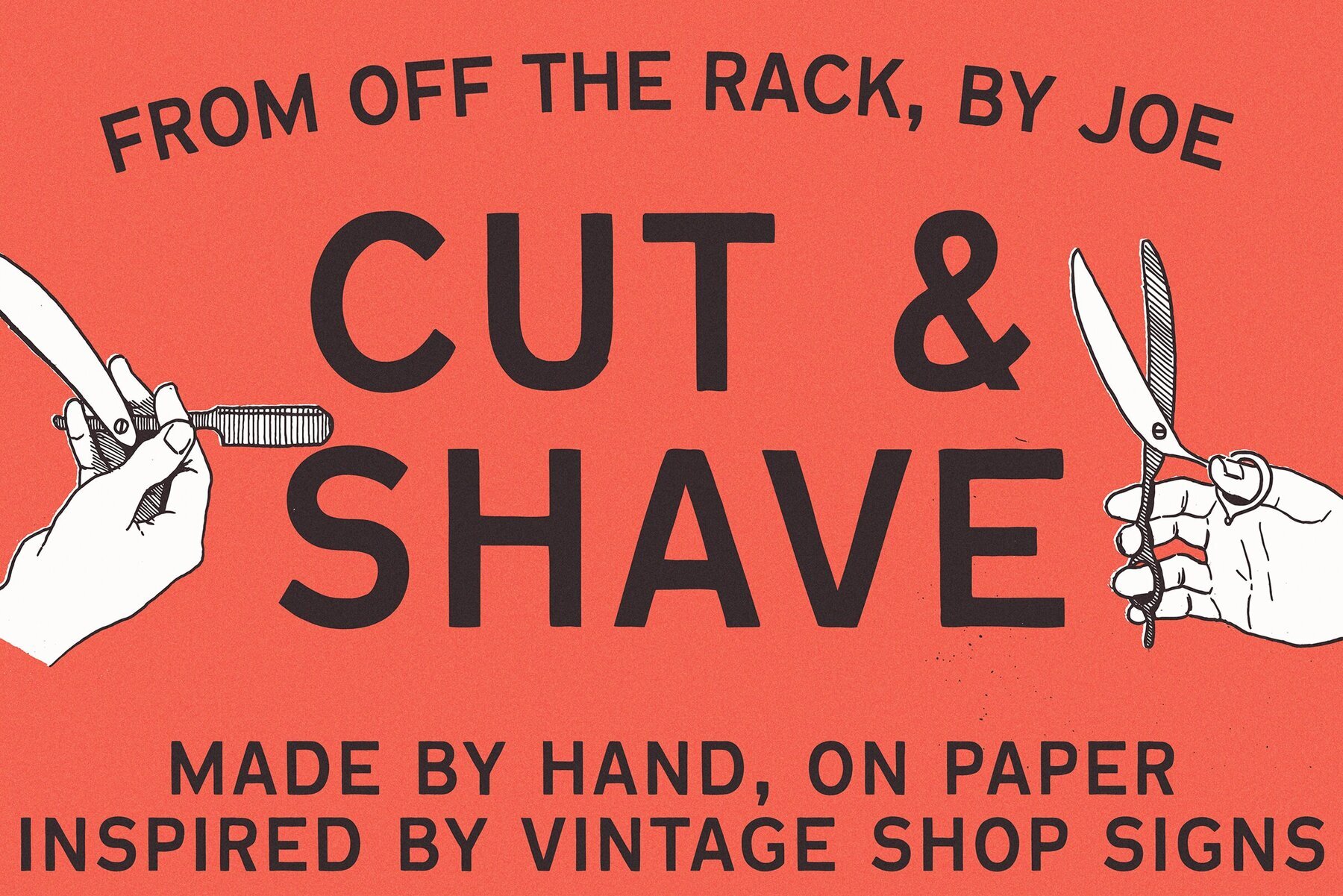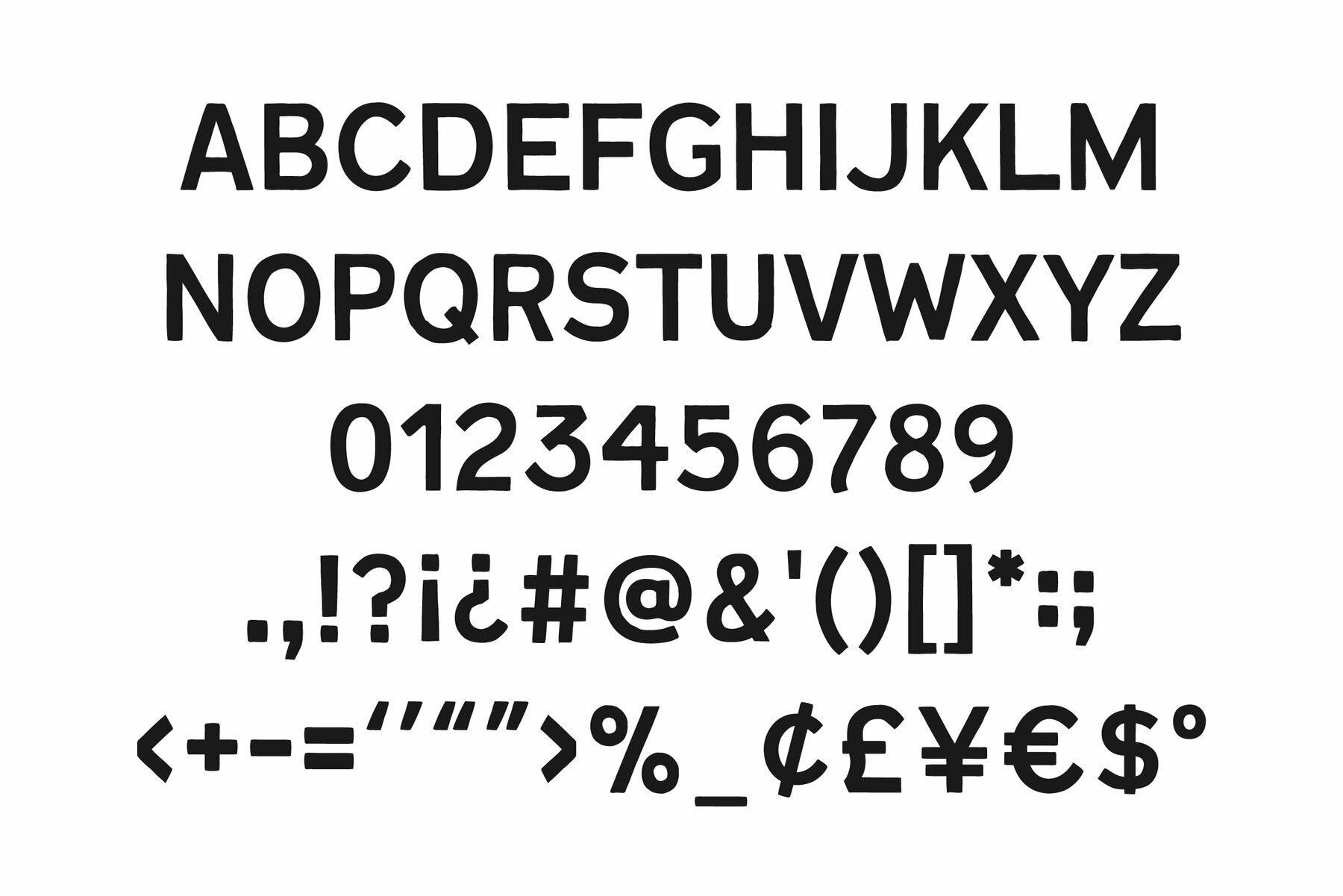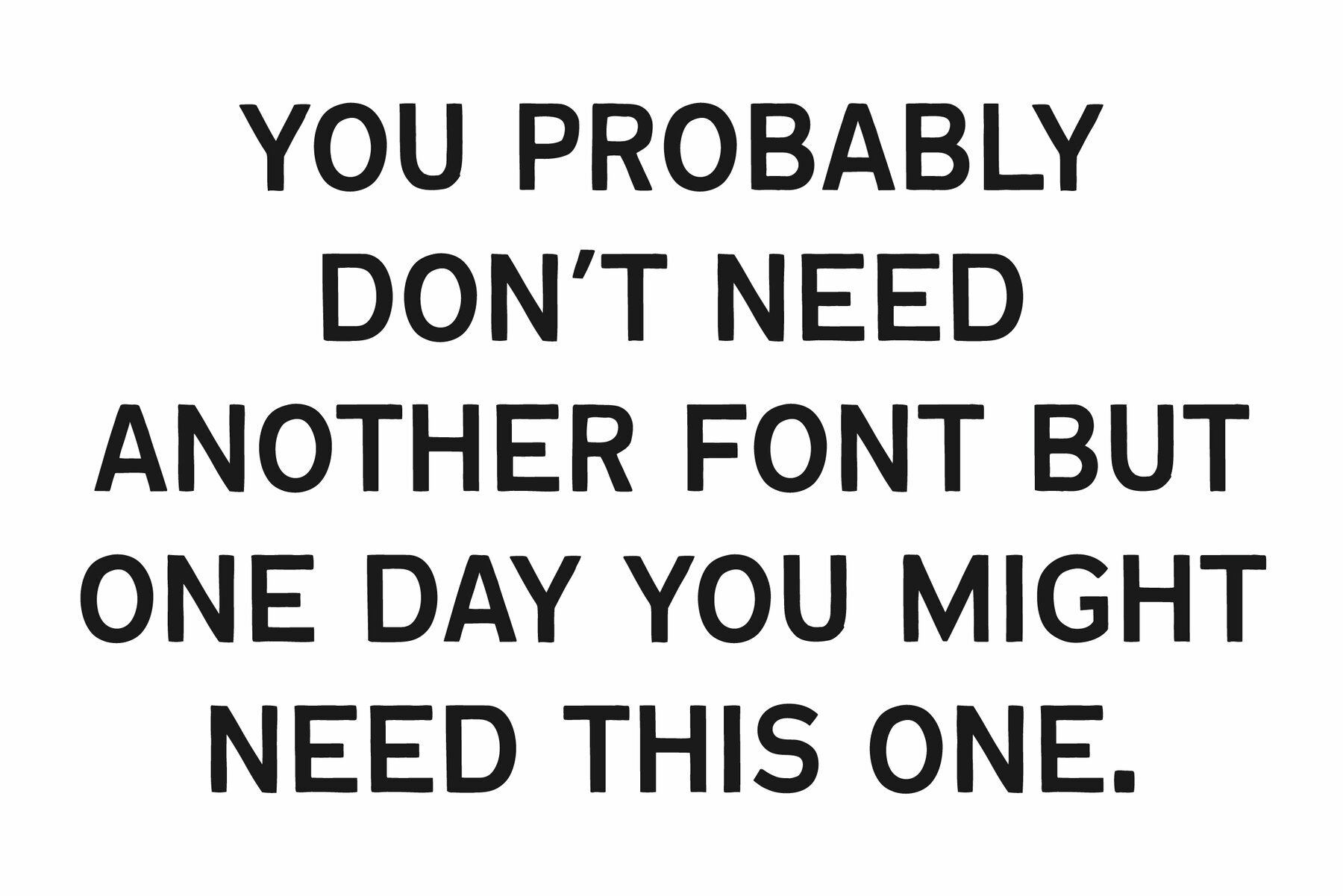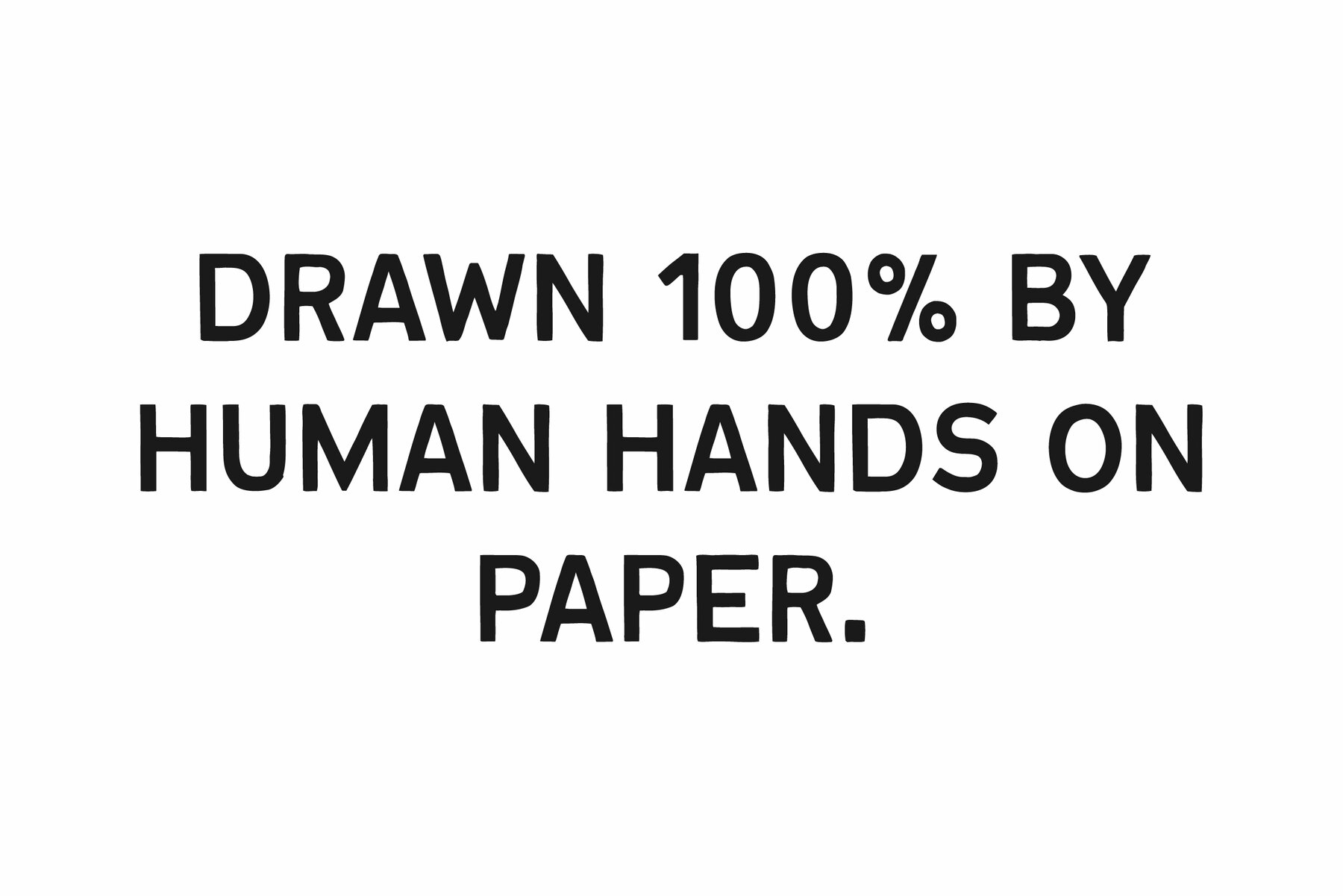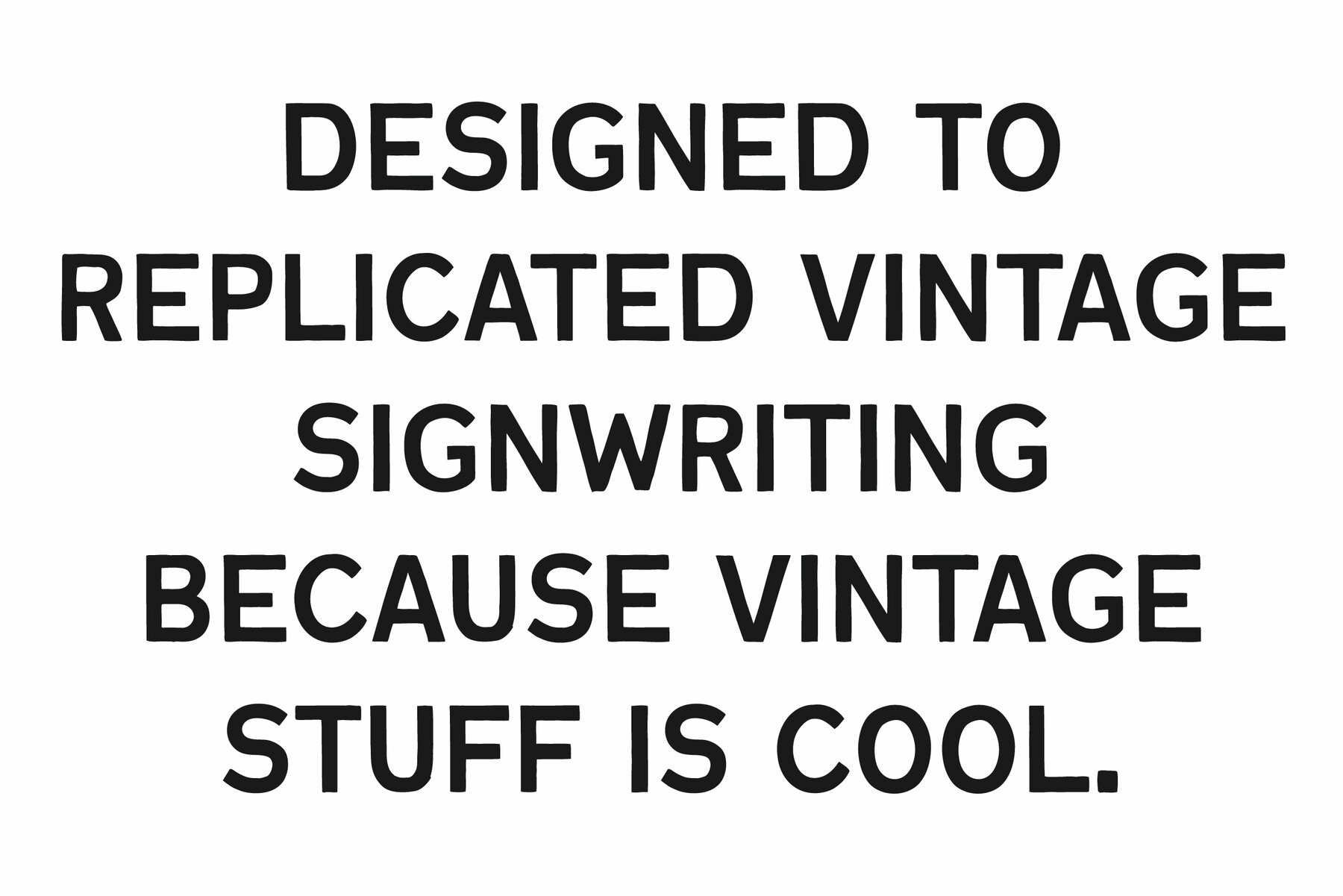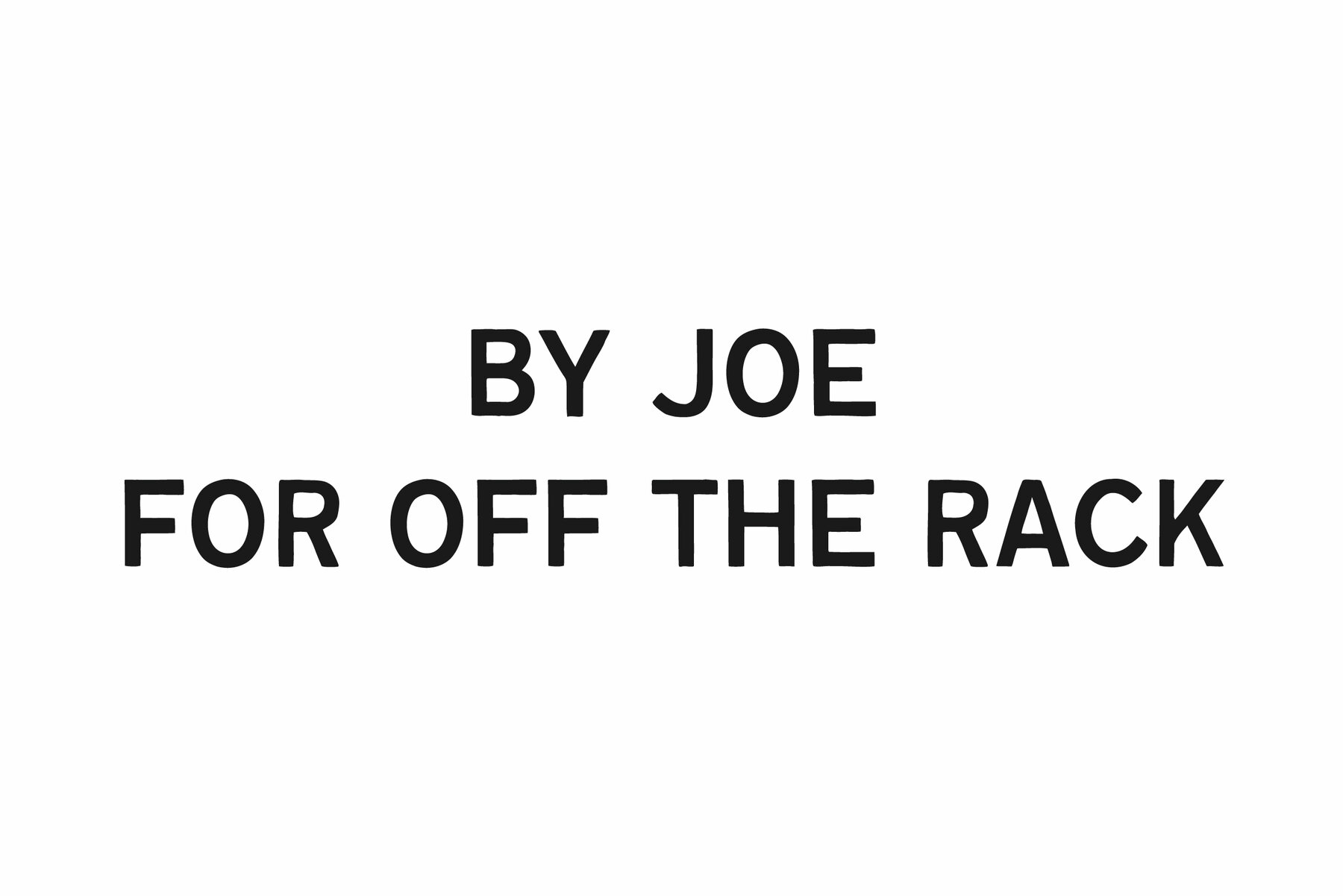
Cut and Shave Font
OTR Cut And Shave Regular
Cut & Shave is inspired by vintage signwriting and logos from the 1800's. Drawn entirely by hand on paper (before being cut up and put back together again digitally) it's the perfect font to add a little character to your designs. Ideal for logos, merch, and as an affordable alternative to hand lettering. Contains uppercase, numbers and punctuation (+ language support for over 60 languages)